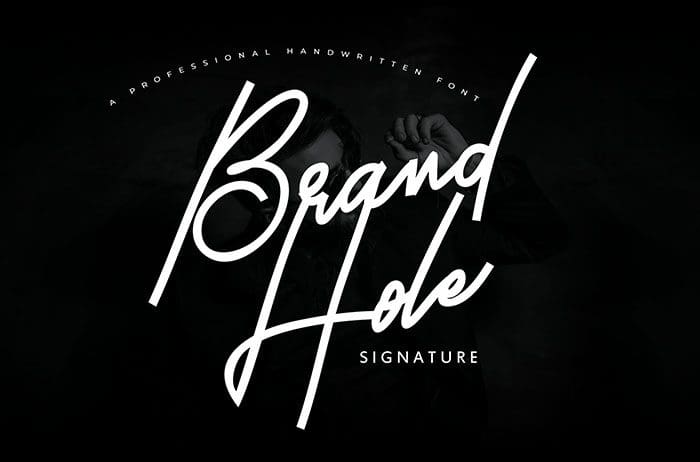
Brand Hole Signature Font
Brand Hole is a stunning and light signature font with a cool feel. Use it to add a smart feel to any design project. Thanks to Vunira Studio for sharing this font! Take a look at this portfolio for more of his stunning fonts.